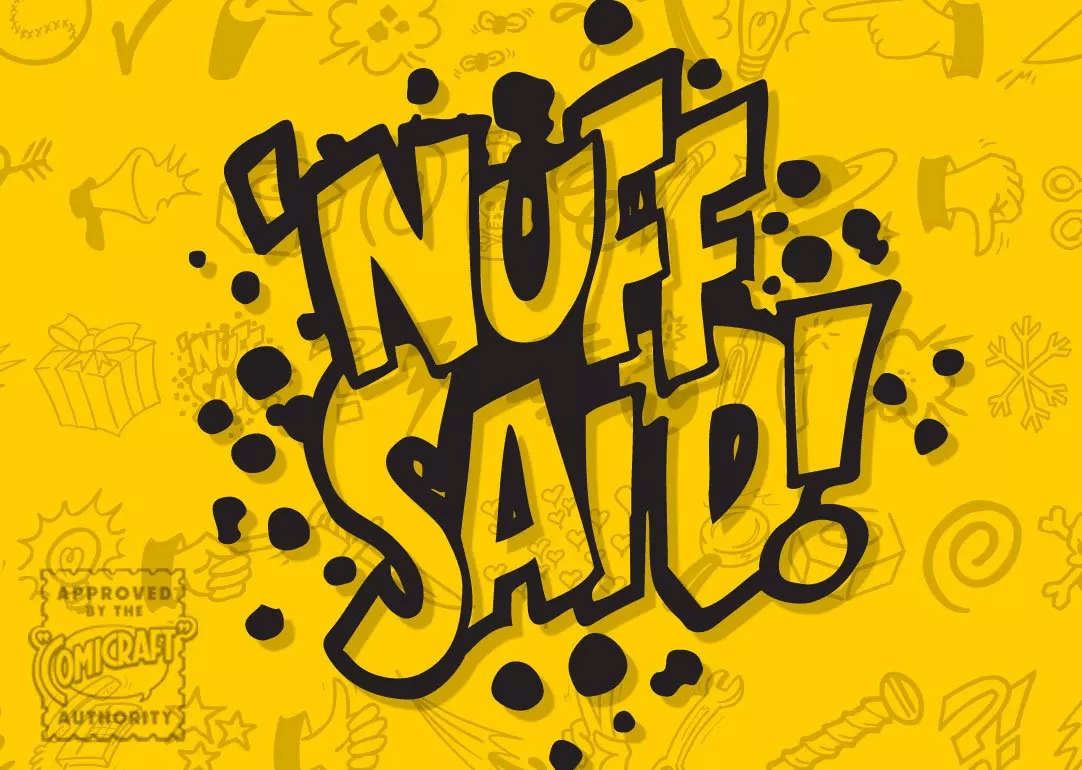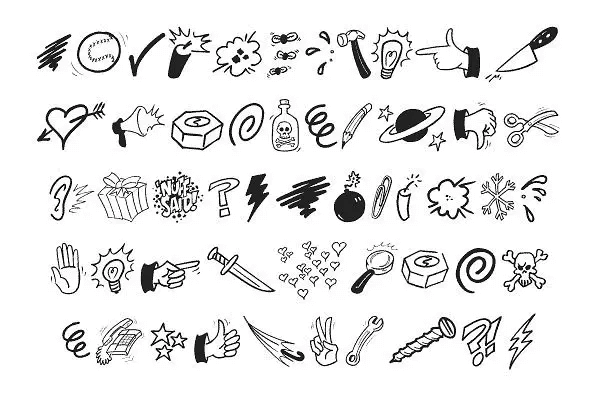
Nuff Said
Font Family by Comicraft Fonts
Comicraft’s President and Tiger Rank-and-File (recently demoted from First Tiger for kissing a girl) stayed up all night with a big box of crayons and created a unique series of illustrations which, we confidently predict, will be widely known as the last word in comic book lettering fonts... ’NUFF SAID!